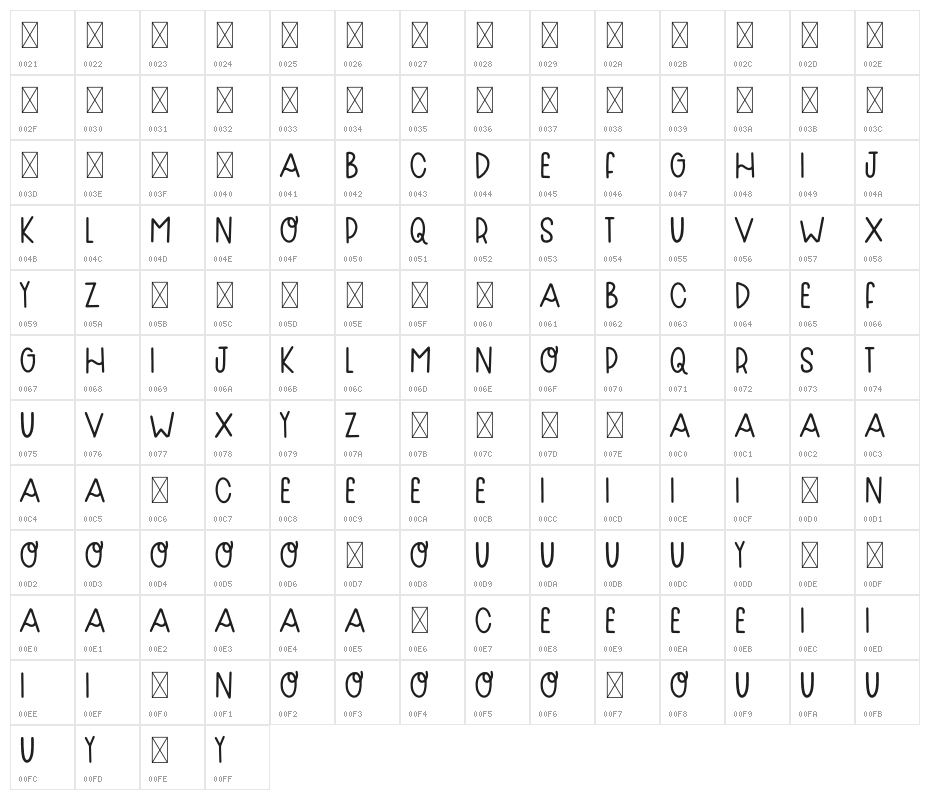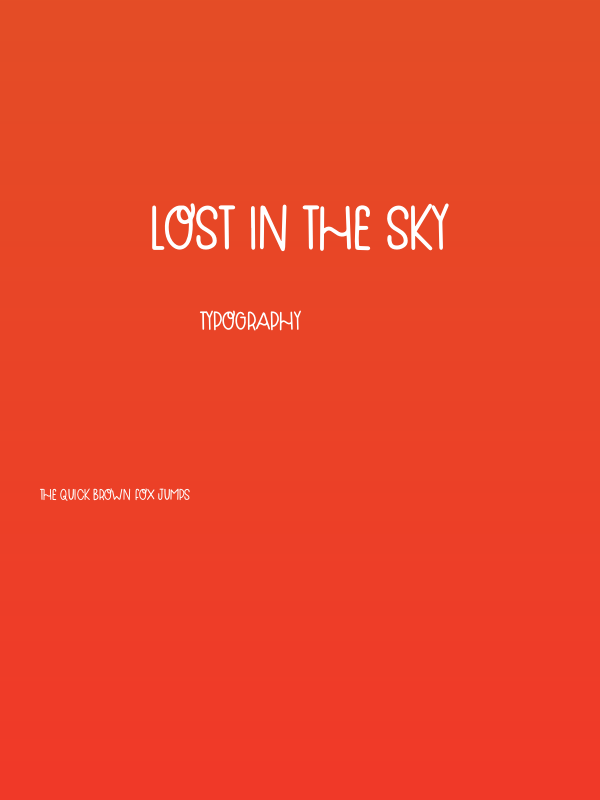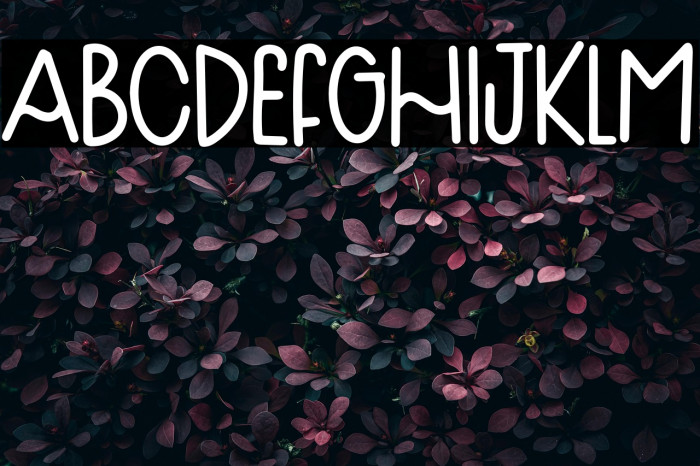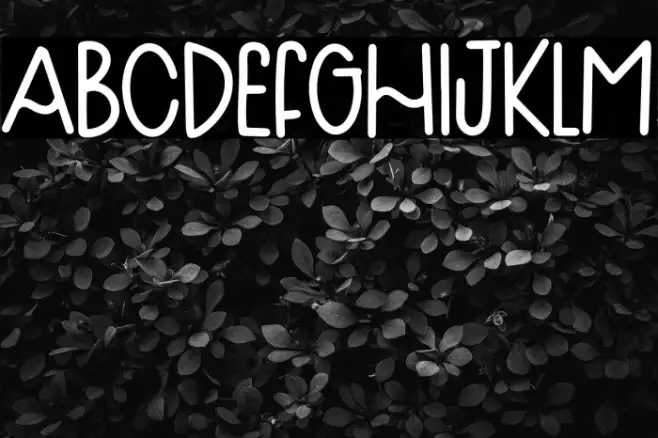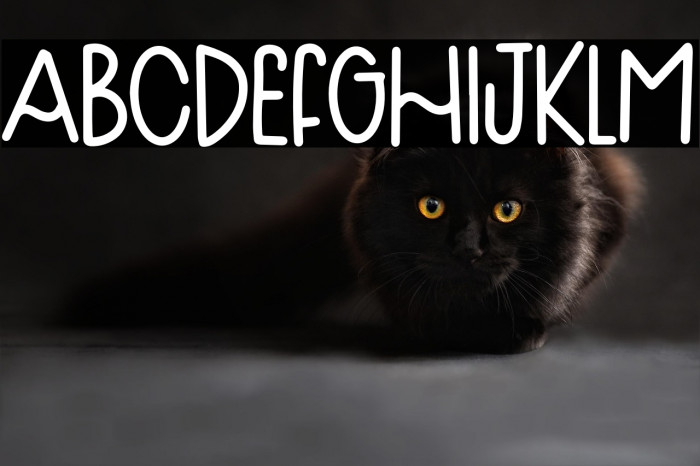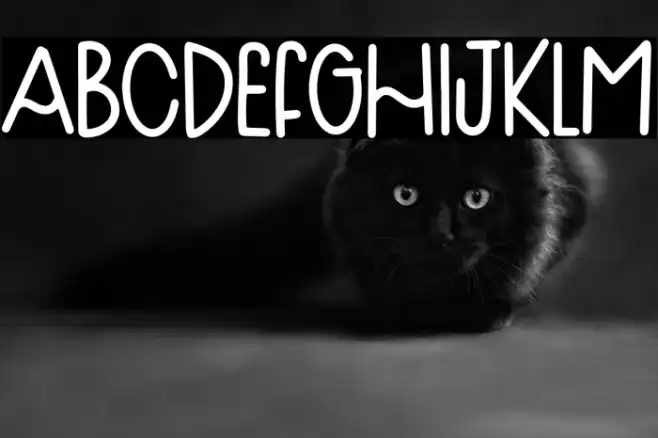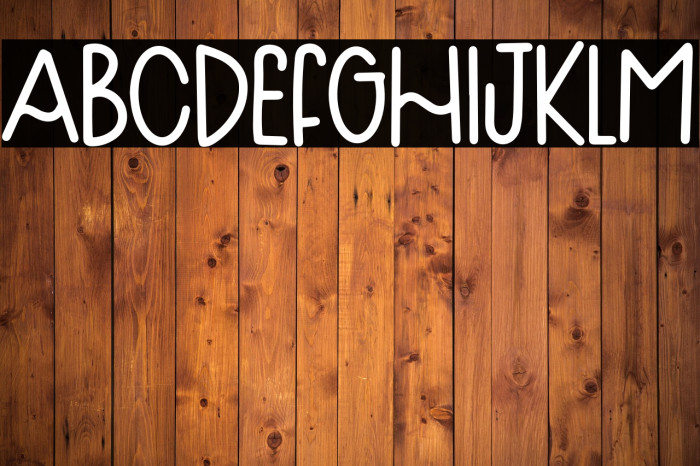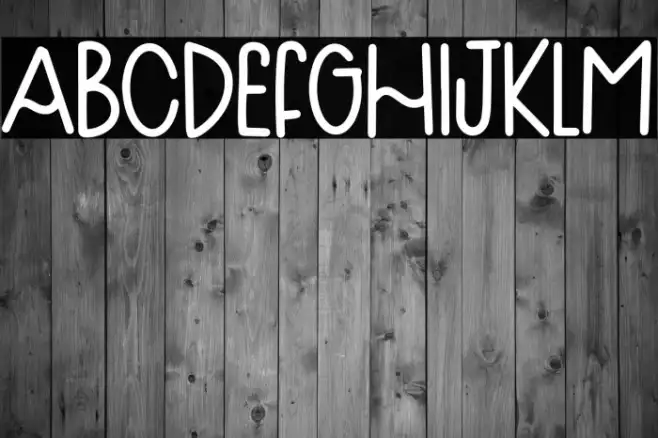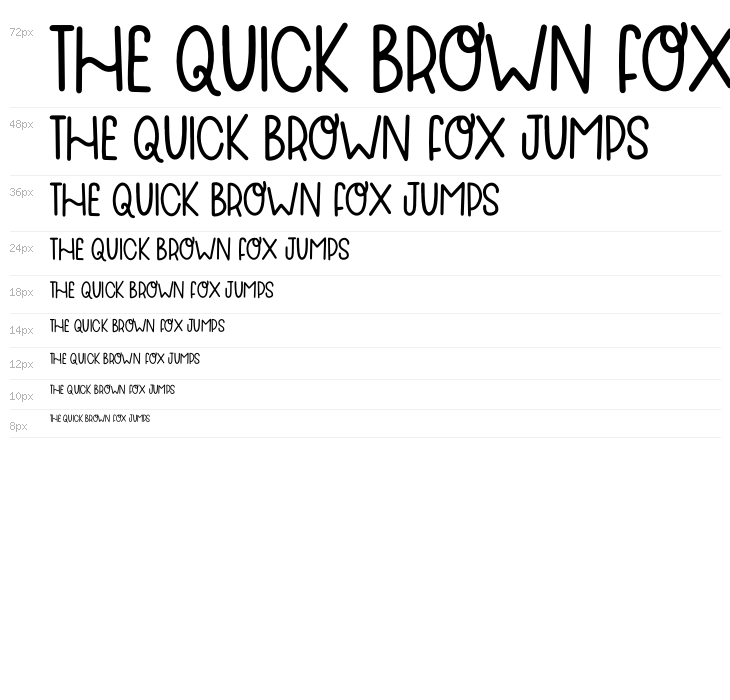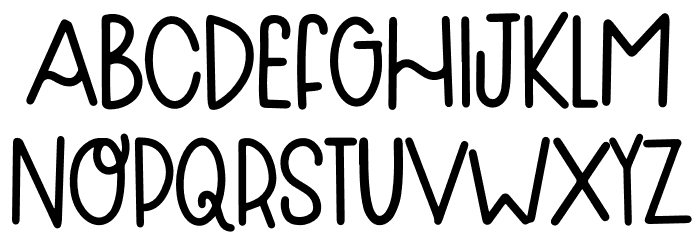
Lost In The Sky Font
Lost In The Sky Description
This playful and whimsical font features a handwritten style with a casual and friendly appearance. The letters are rounded and slightly irregular, giving them a charming, informal look. The uppercase and lowercase characters maintain a consistent style, with smooth curves and a slightly bouncy baseline. The font is easy to read and has a unique personality that stands out, making it suitable for creative and fun projects. The absence of serifs and the uniform stroke width contribute to its modern and approachable feel.
| Use Case | Headlines, Logos, Social media graphics |
| Proposed Projects | Ideal for children's books, greeting cards, playful branding, and social media graphics. |